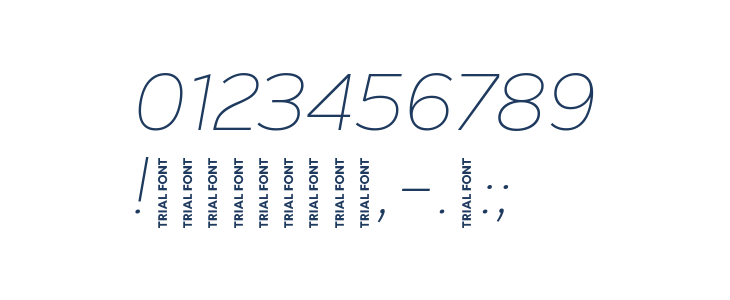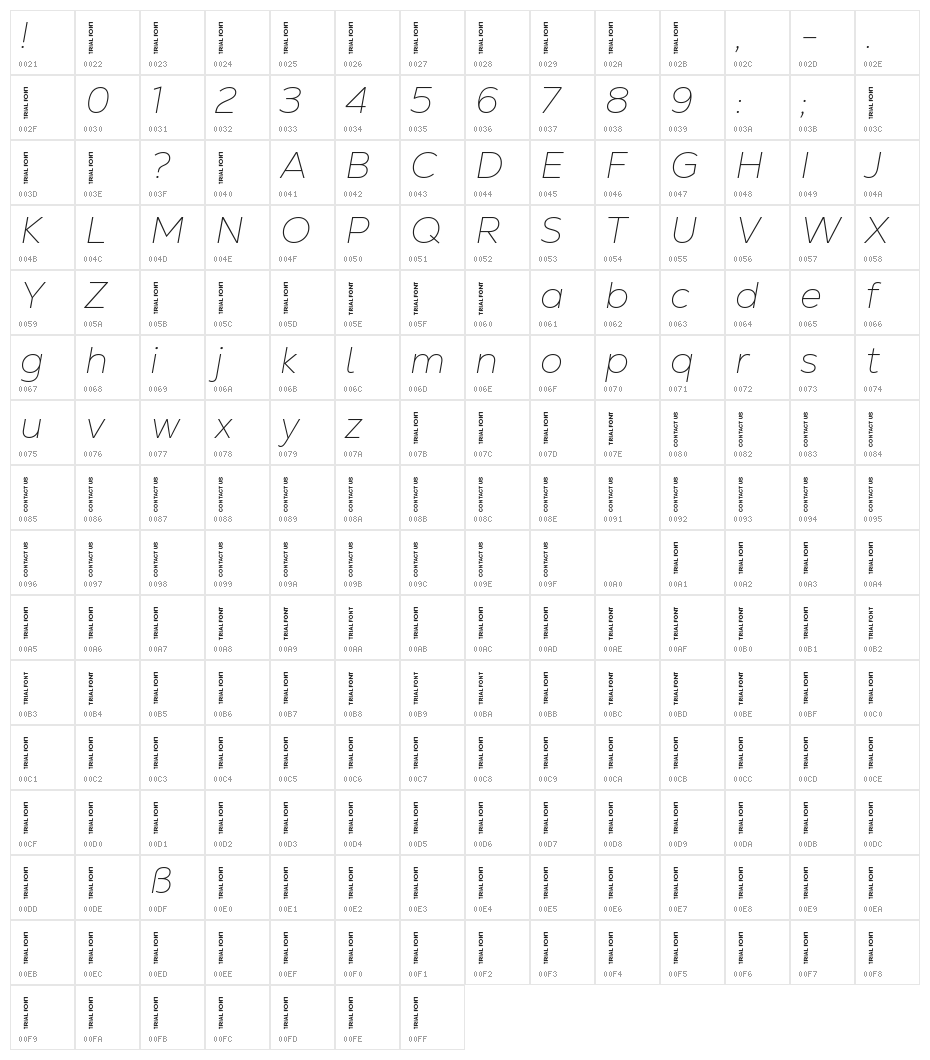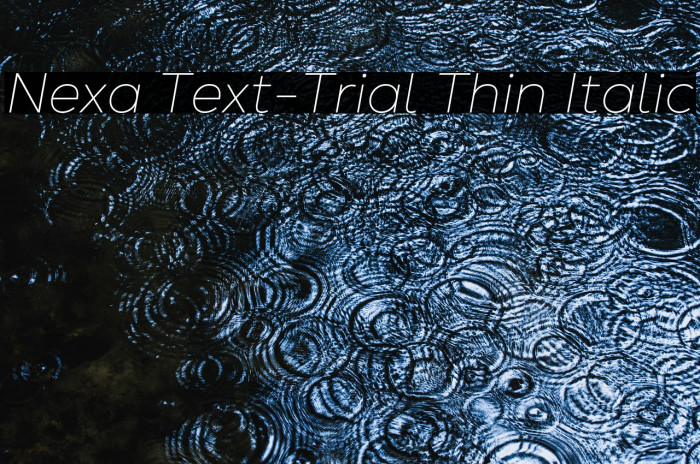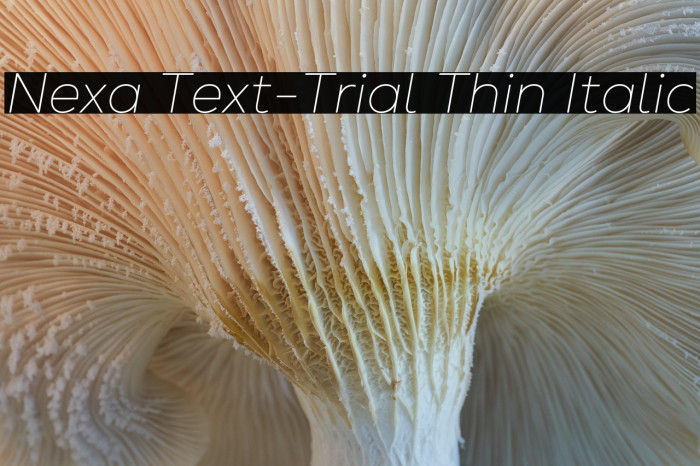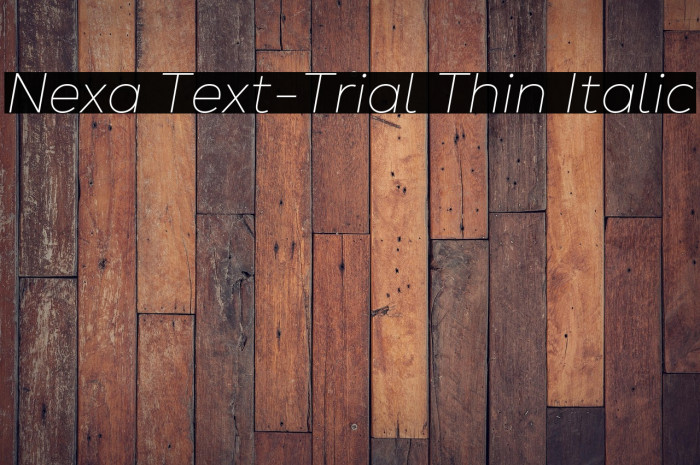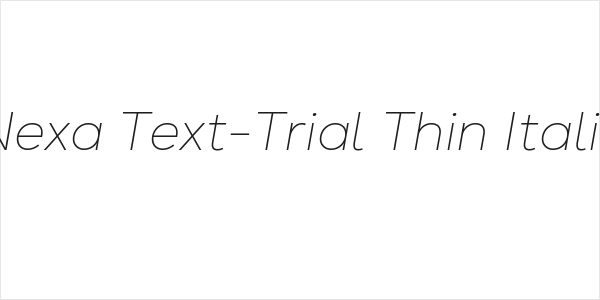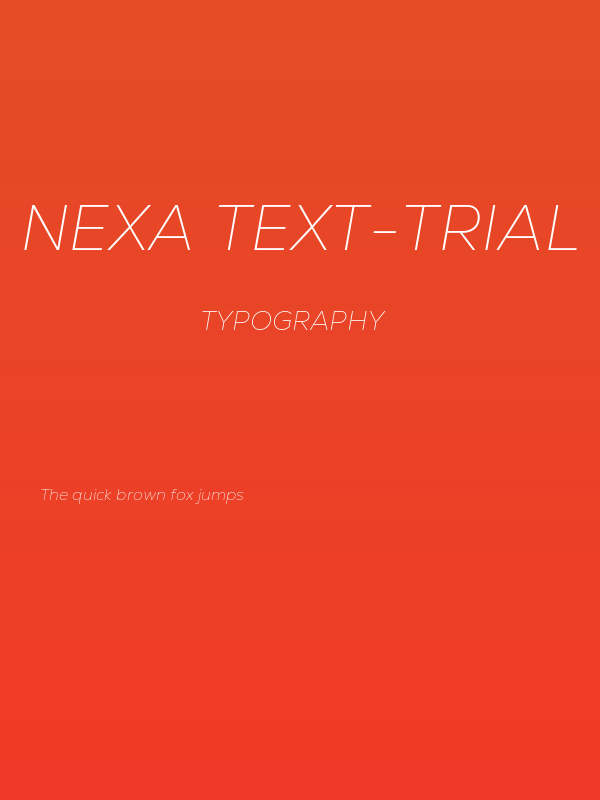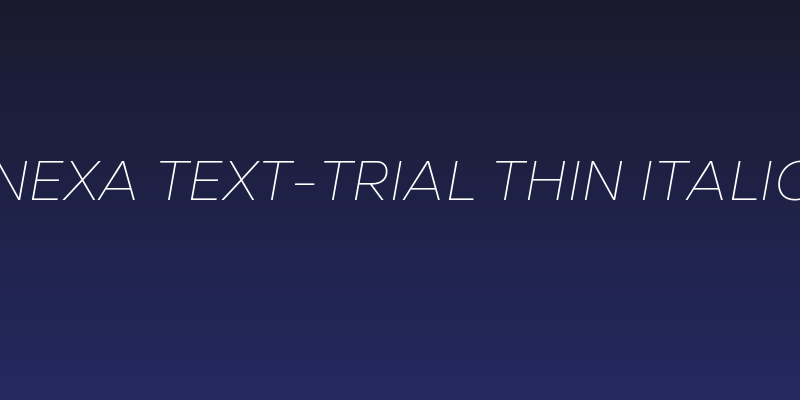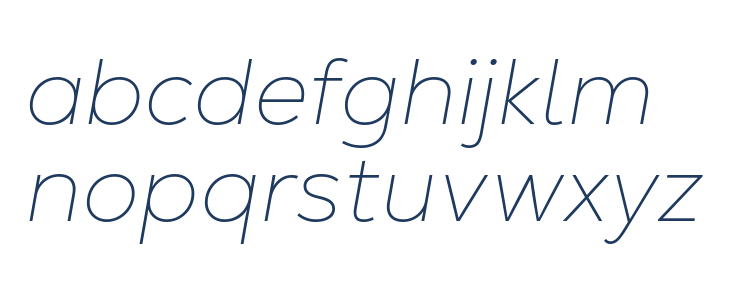
Nexa Text-Trial Thin Italic Font
Nexa Text-Trial Thin Italic Description
This font features a sleek and modern design with thin, elegant lines that give it a refined and sophisticated appearance. The characters are slightly slanted, adding a dynamic and fluid feel to the text. Its minimalist style is achieved through clean, geometric shapes and a uniform stroke width, making it highly legible and versatile for various design applications. The font maintains a consistent and harmonious look across uppercase, lowercase, numbers, and special characters, ensuring a cohesive visual experience.
| Proposed Projects | Ideal for modern branding, minimalist design projects, digital interfaces, and editorial layouts. |